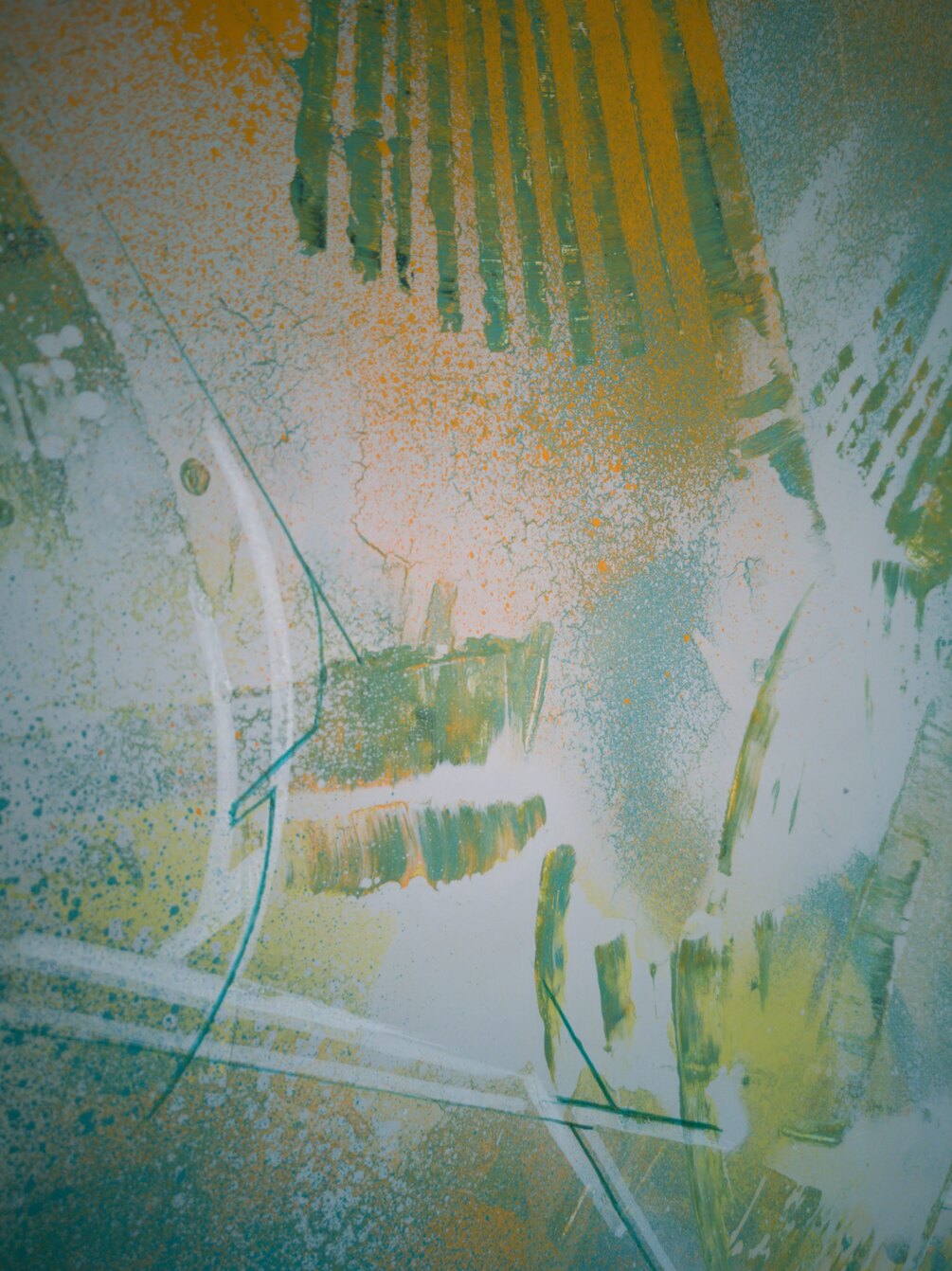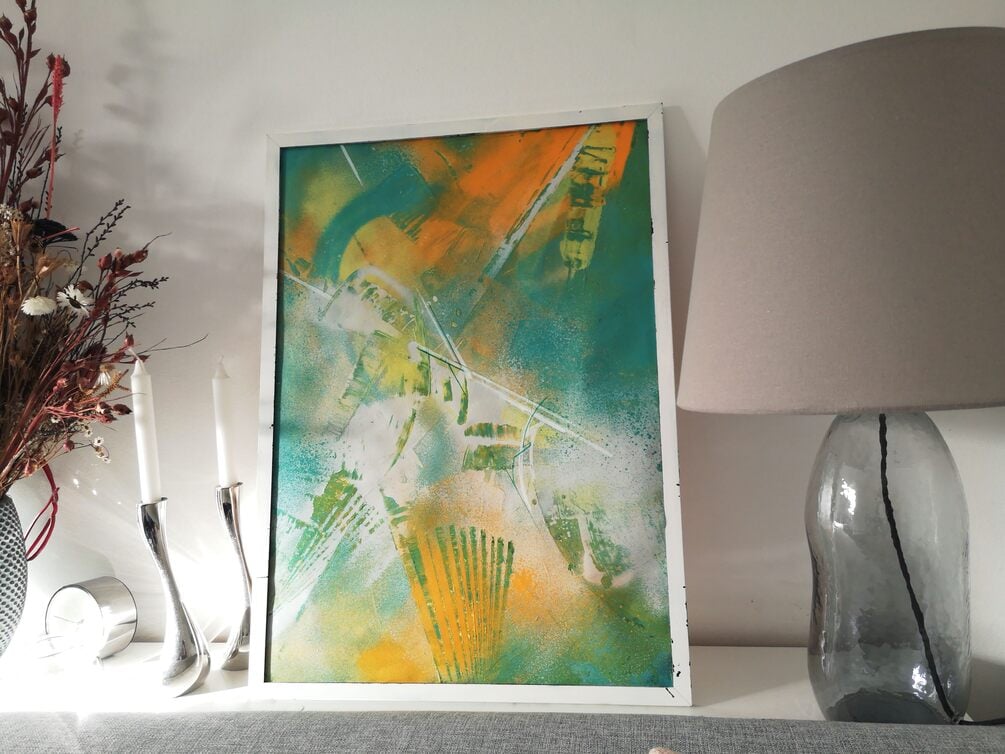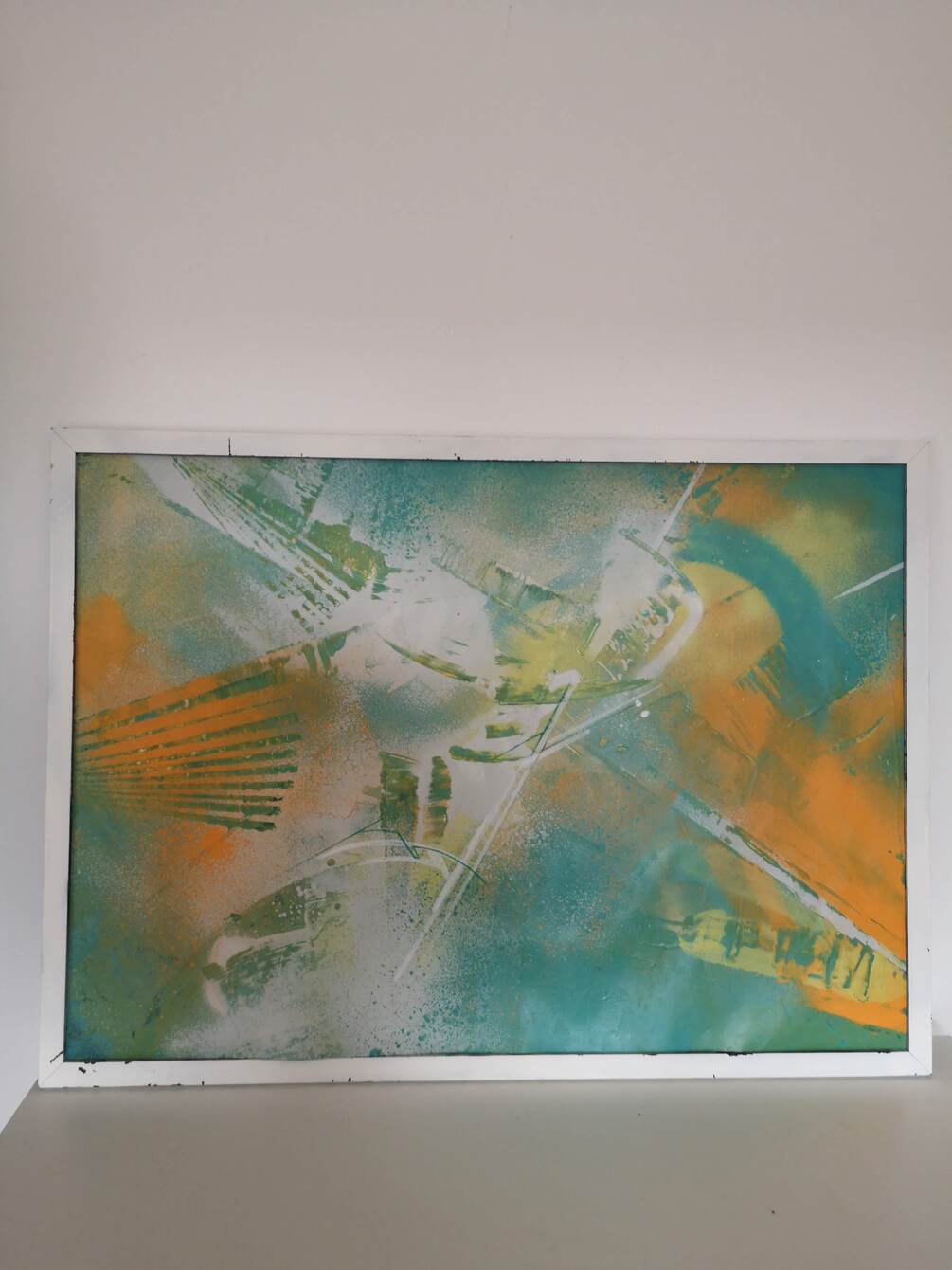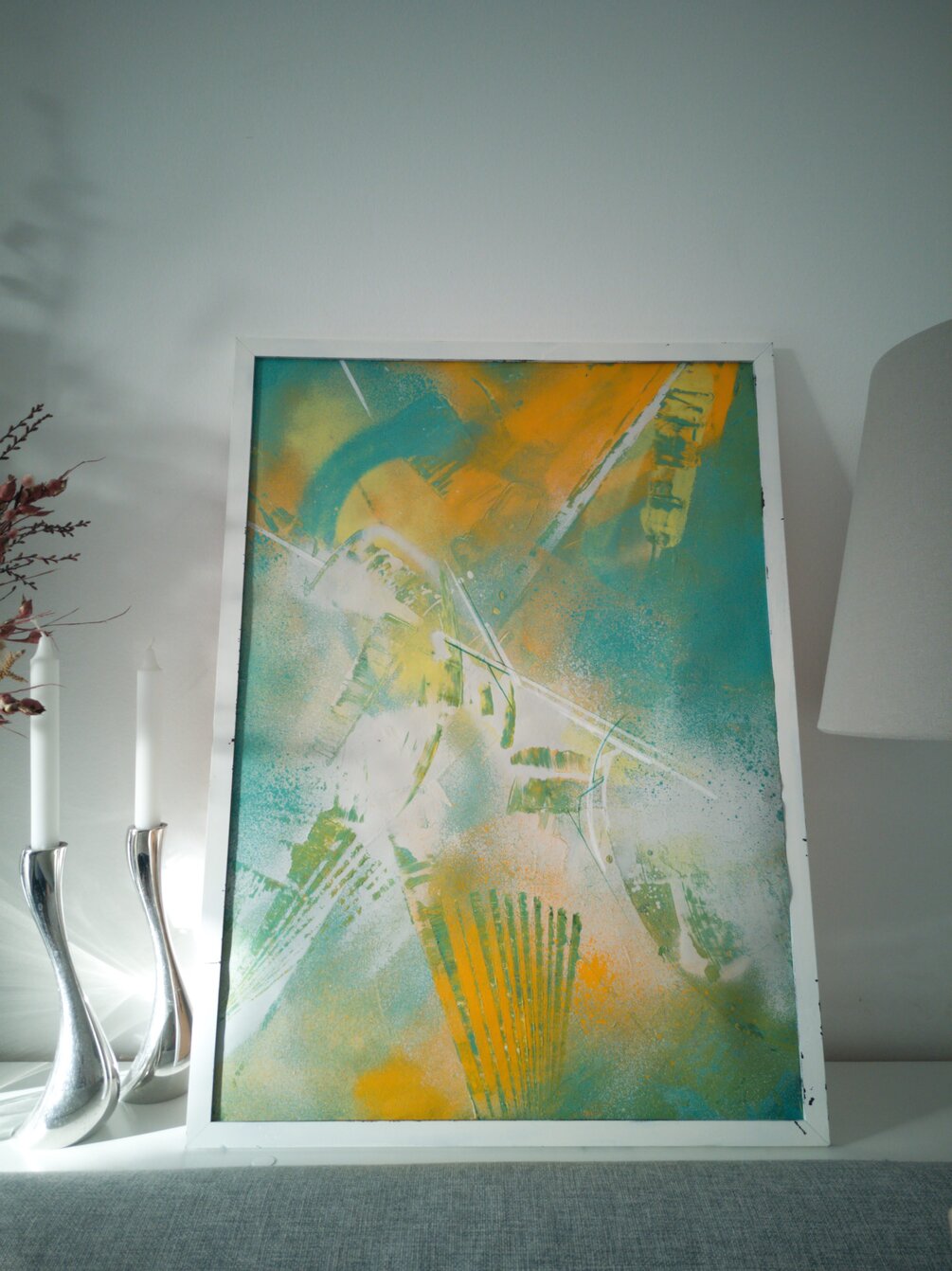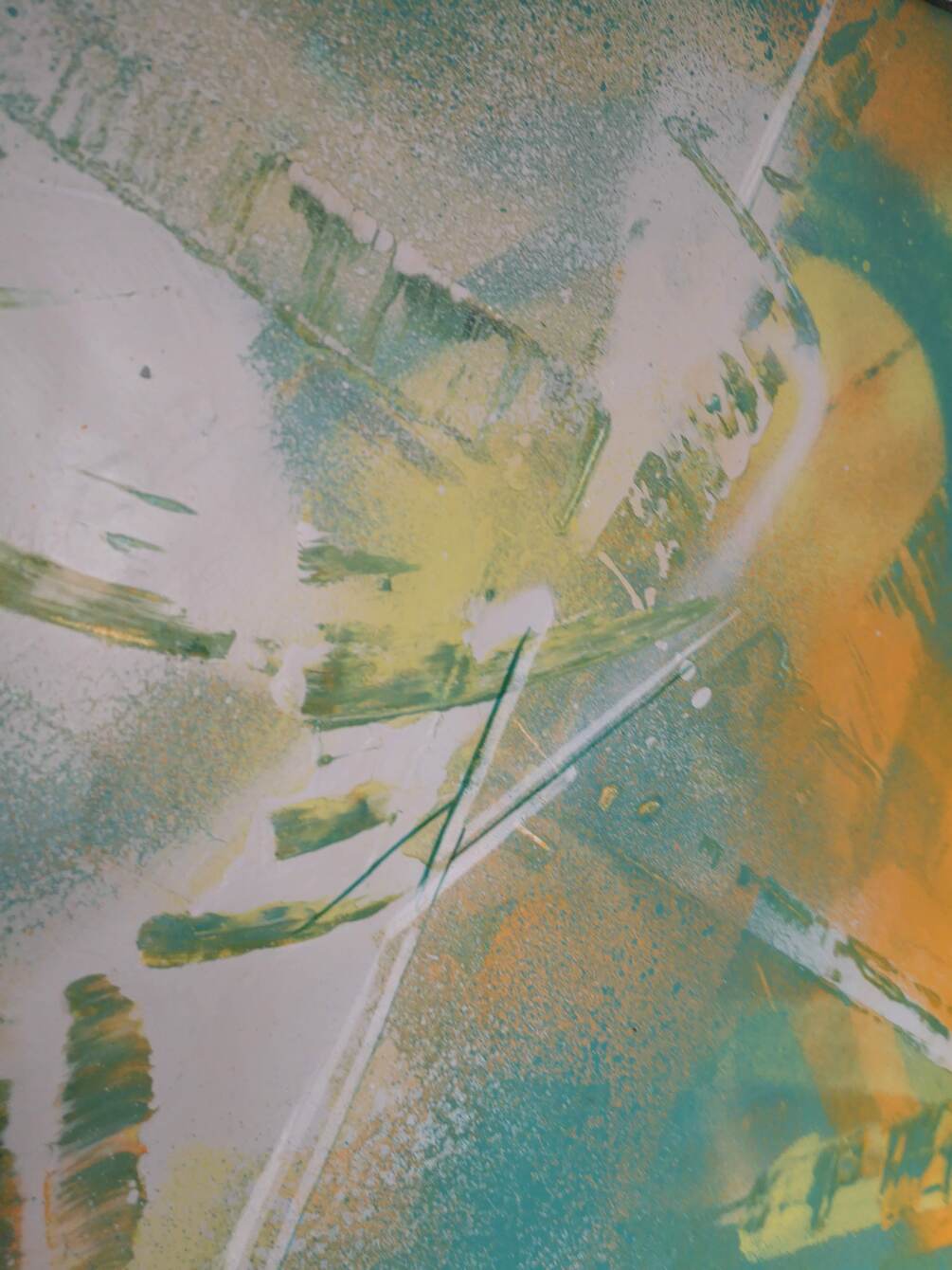
Waltz - A dance of sense
- using the inner sense of dharma, ethics and discretion.
I choose to let the observer decide from themselves from which angle, where the lines, the dynamics, the contrasts conjure up images or narratives within the artwork.
I have not written any signature, because I want to keep the flexibility and the interpretation open.